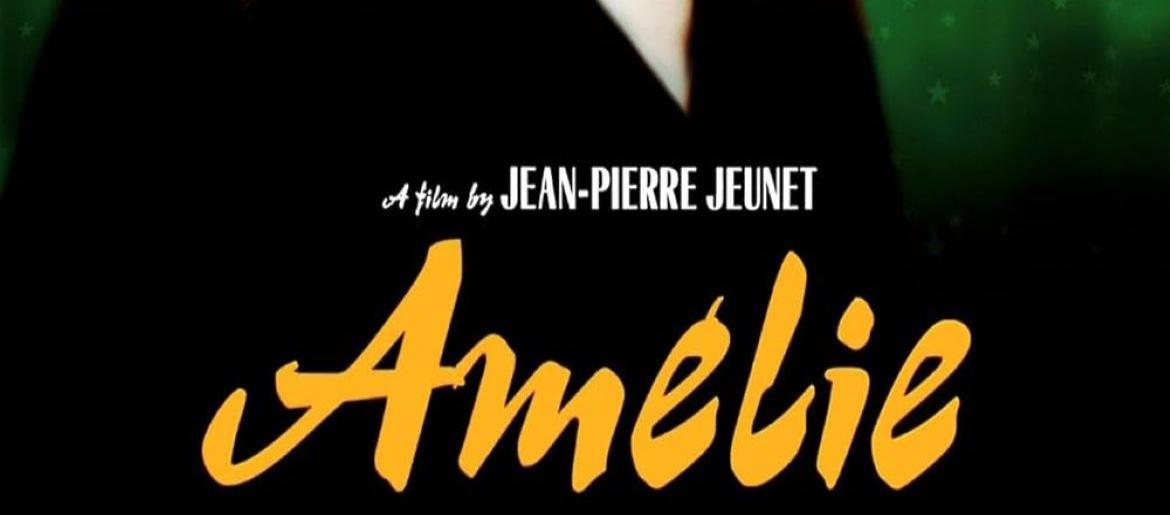
The Amélie font captures the whimsical and romantic charm of Jean-Pierre Jeunet’s beloved French classic Amélie. The film’s title design features a handwritten-style script with a playful, organic flow that mirrors the quirky and imaginative nature of the main character. Its lettering feels warm and personal, perfectly reflecting the film’s dreamy atmosphere set against the streets of Montmartre.
While there isn’t an official Amélie font released, many designers have created alternatives inspired by the movie’s iconic title. These fonts often lean into calligraphy or casual handwritten styles, giving them a friendly, inviting look. The fluid strokes and imperfect curves make them ideal for projects that need to express creativity, nostalgia, or lighthearted emotion.
For designers, fonts similar to the Amélie font are perfect for posters, wedding invitations, personal branding, or any artwork that seeks to evoke a sense of romance and whimsy.